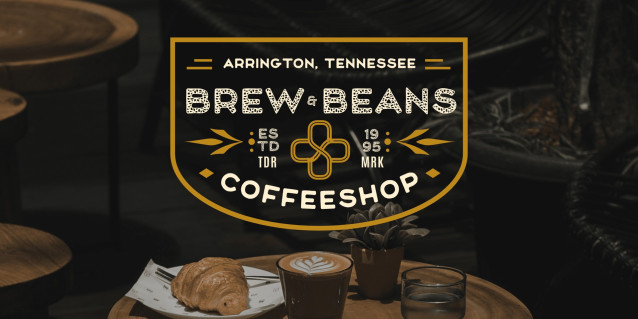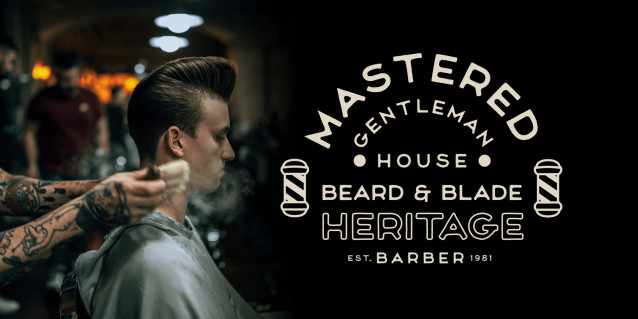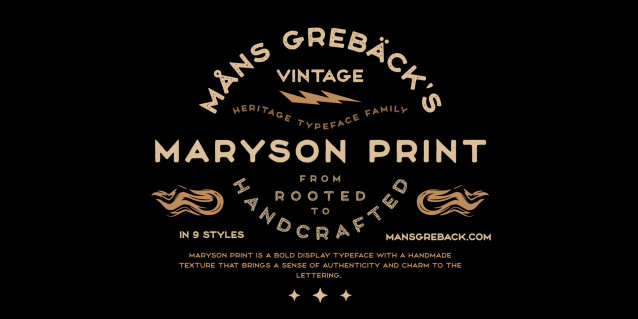
Maryson Print Font
Maryson Print Font is a simple and modern display font suitable for quotes, logos, headings, titles, and many more. Use it on any of your creative projects, and your designs will become outstanding!